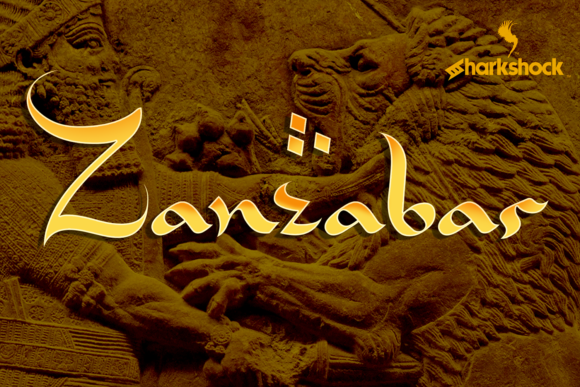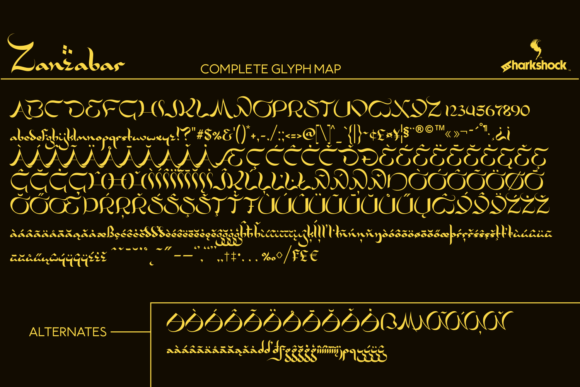
Zanzabar Font
About Zanzabar Font
Zanzabar is an exotic display font with a distinctive Middle Eastern flair. Its characters loosely mimic the Arabic script.